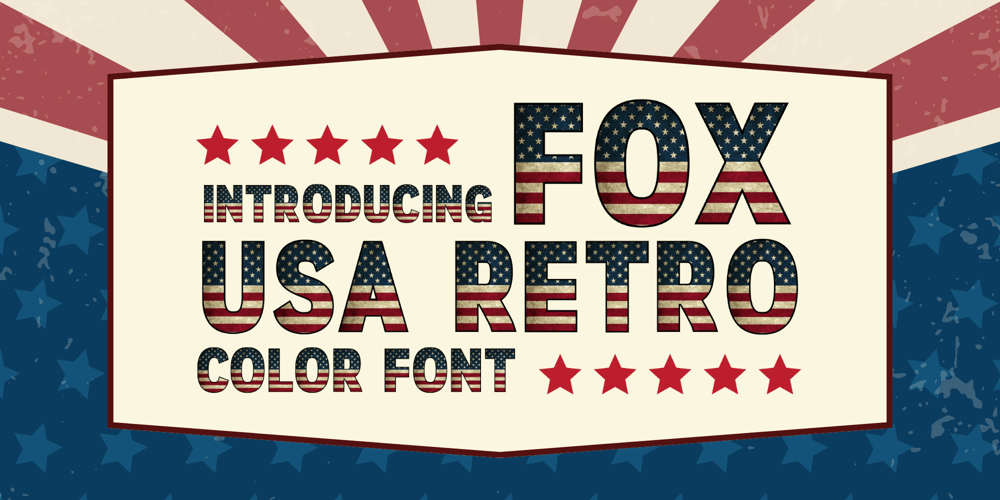
Fox Usa Retro
Fox Usa Retro font
Fox Usa Retro Font Family was designed by Rattana Rattanawan and published by Fox7. Fox Usa Retro contains 1 styles and family package options. Introducing “Fox Usa Retro Font” is a Retro Color font style. It’s the perfect font for Memorial Day-themed or 4th of July-themed projects. It works great for creating cool designs that scream for attention. It’s ideal for anything ranging from t-shirts, and greeting cards to stickers, Fall in love with its incredibly cool style, and use it to create cool designs!Opentype SVG is an entirely new font format that functions similarly to standard fonts. The big difference is that this new format allows font designers to incorporate as much detail as we like into our creations by using high-resolution bitmap images for the letters as opposed to traditional vector. This means the beautiful hand painted letters of Mattina-Sera can contain lots of real texture.IMPORTANT: OpenType-SVG bitmap is currently visible only in a few apps like Photoshop CC2017 and Over, Illustrator CC 2018+, Indesign CC 2019+, and MacOS native apps (FontBook Pages, Keynote,…) but Not in Photoshop CC 2015 or older.🌺🌺 Please note that the Canva do not support color fonts! 🌺🌺